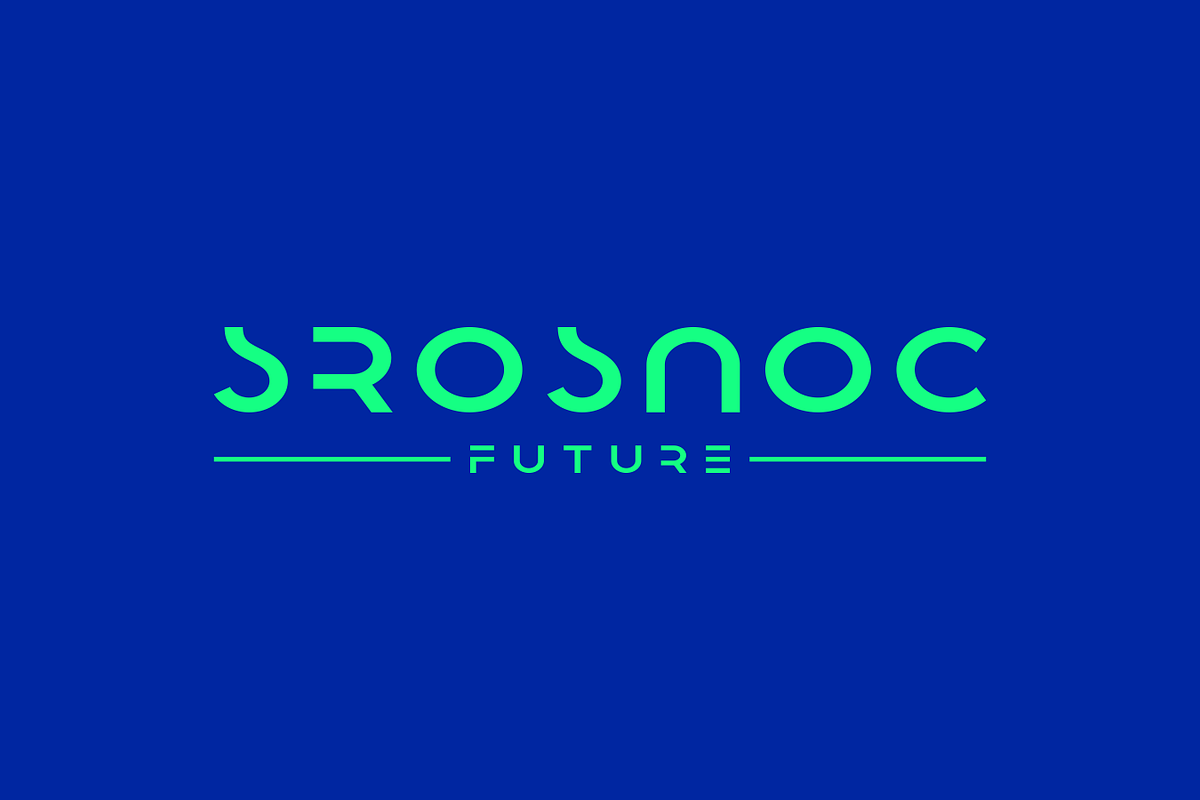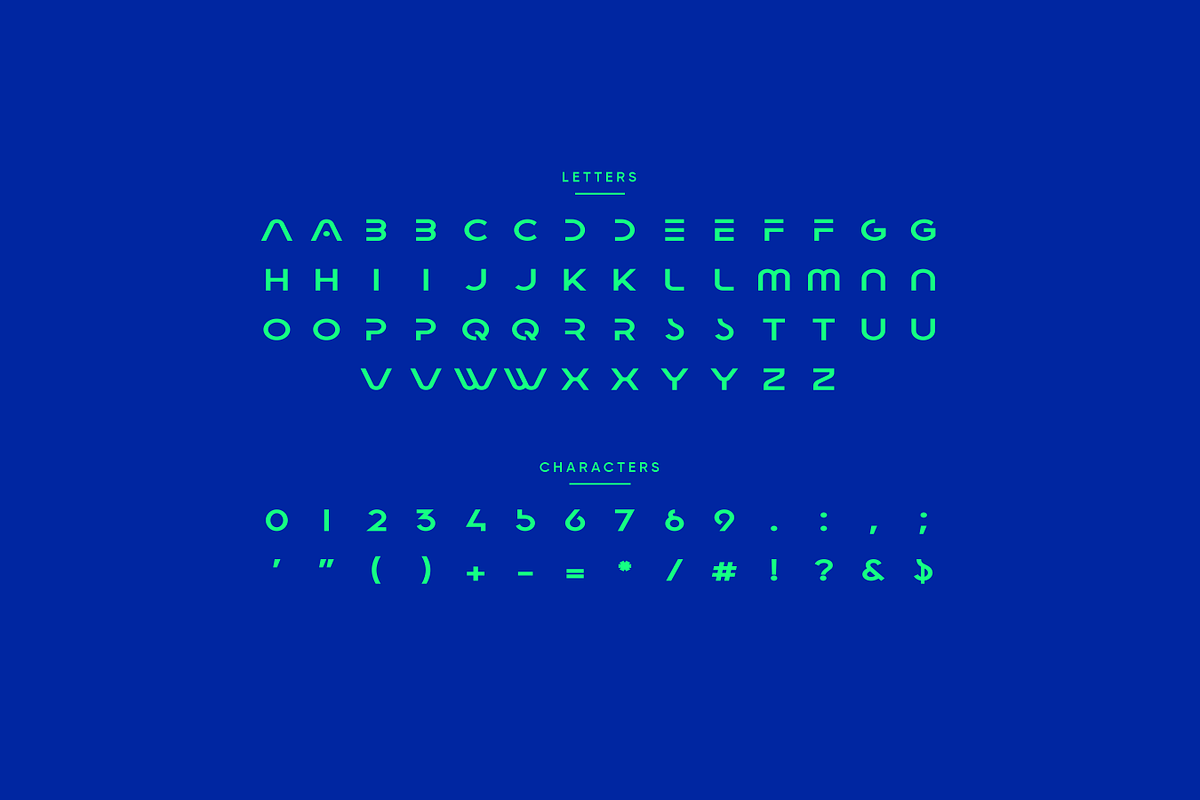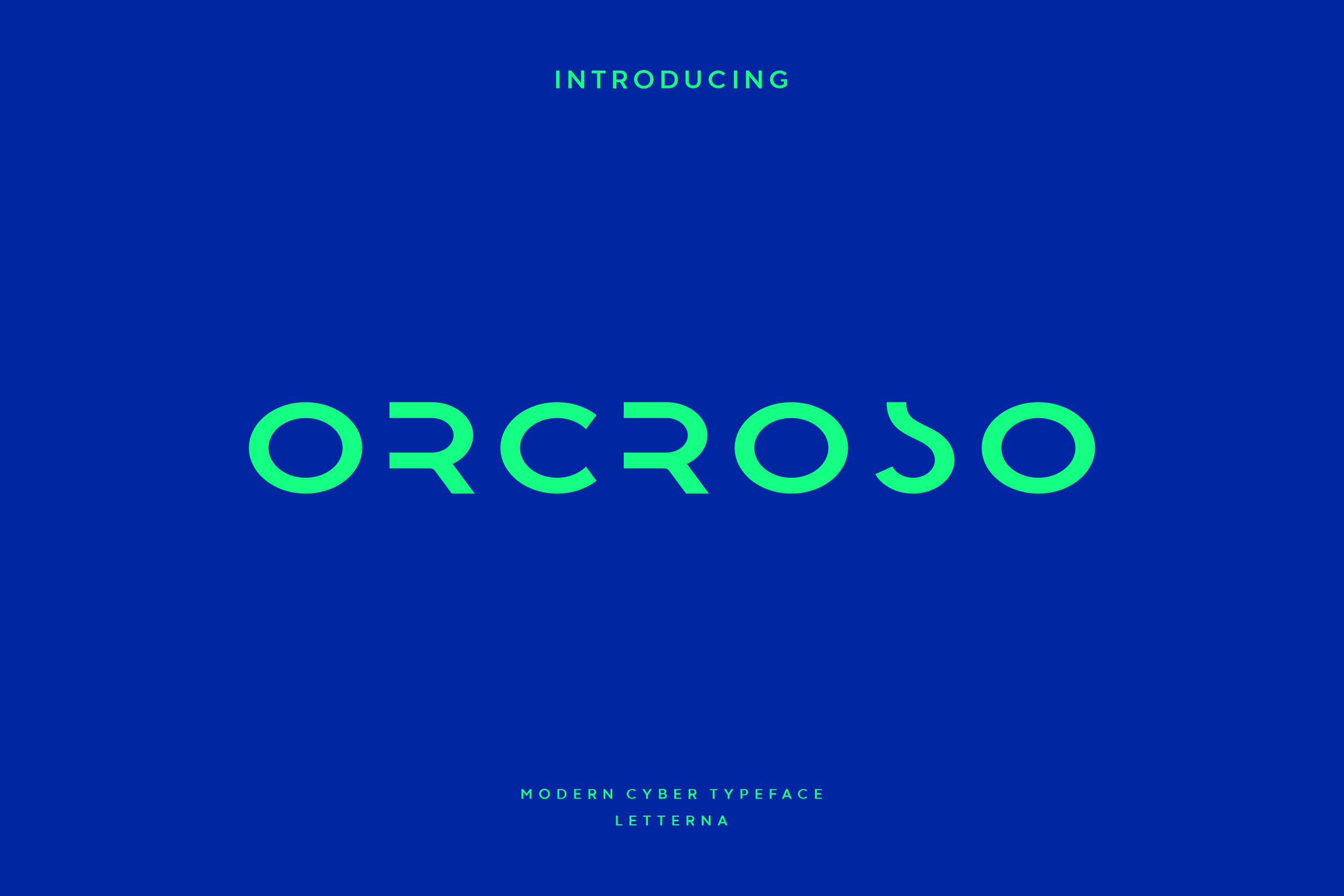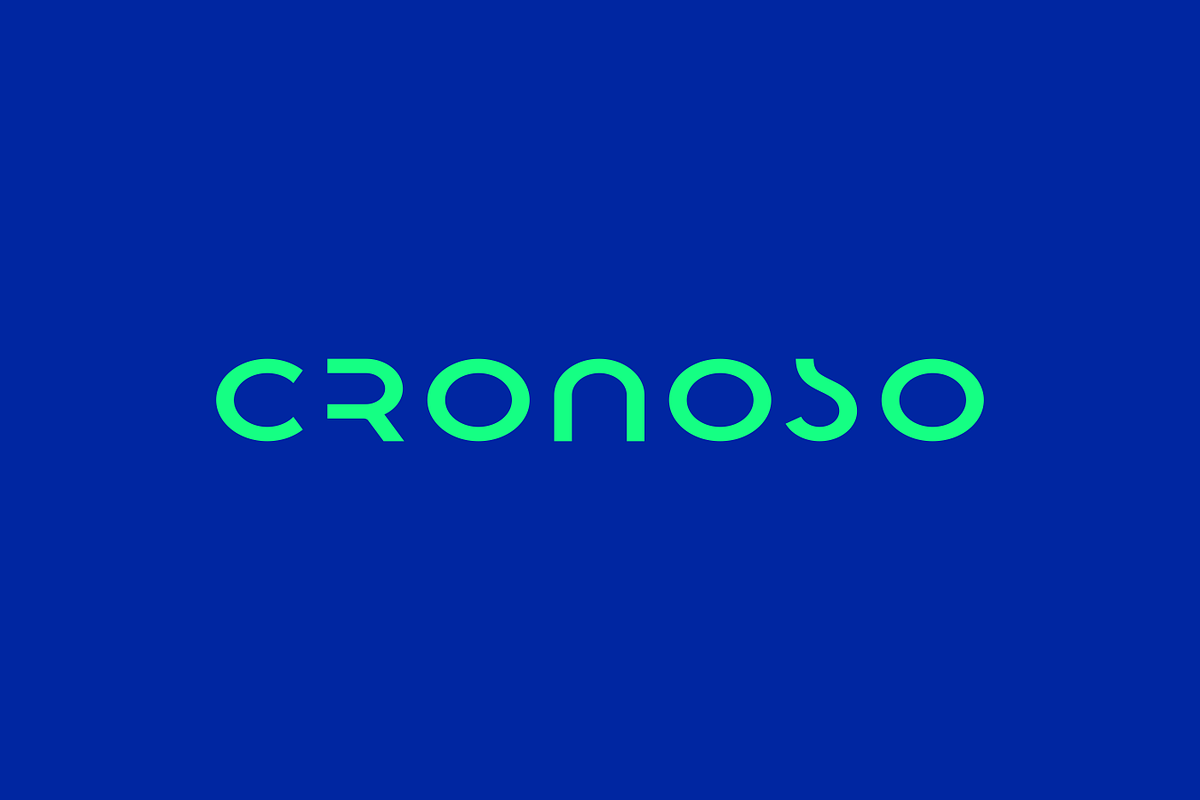
Orcroso - Modern Futuristic Typeface
Orcroso font is a modern and authentic display font. This font is good for Logo Design, Poster, Movie Titles, Books Titles, and good for your secondary text font. Orcroso will brings you to the next level of a stunning typeface that can showcase elegance but with a minimalist form. The curves at each end of the letter ornament illustrate that this font is very ready to live in the present and the future.